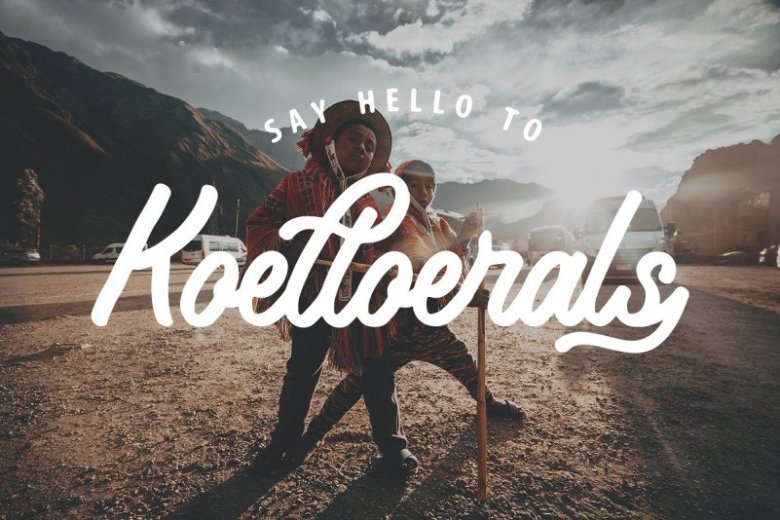
Koeltoerals Script Font Free
Say hello to Koeltoerals Font. This is a bold children font, it’s modern and playfull script but also suitable for retro fonts! It’s designed and shared by Crump Hand.
It’s a Handmade Typeface Styles, designed to combine perfectly and allow you to create stunning hand-lettering quickly and easily. Ideal for logos, handwritten quotes, product packaging, header, poster, merchandise, social media & greeting cards.